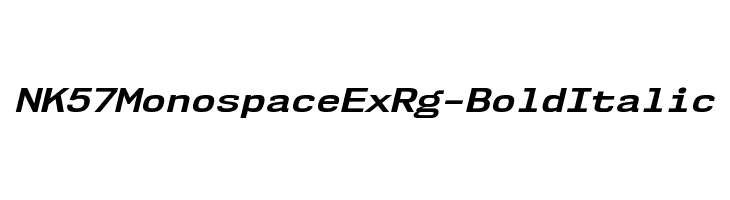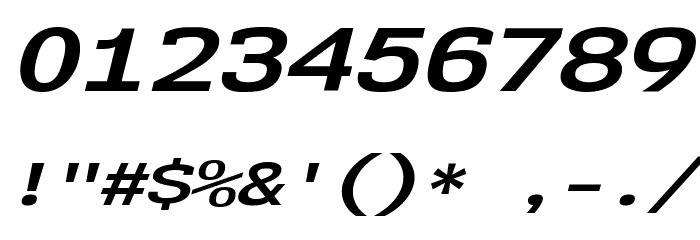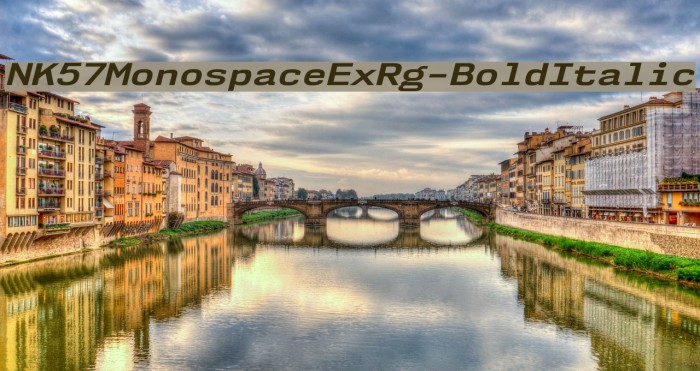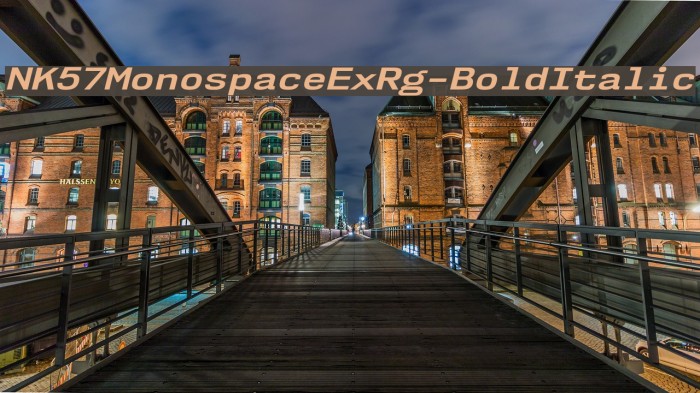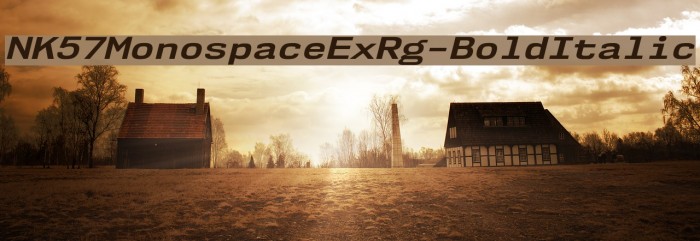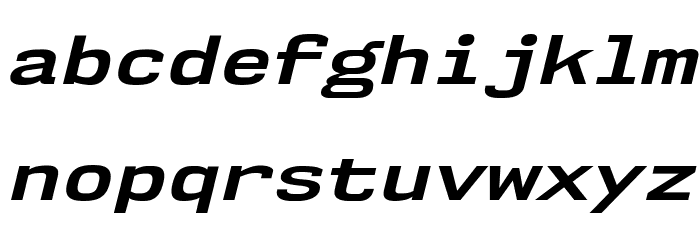
NK57MonospaceExRg-BoldItalic Font
This typeface presents a bold and italicized style, characterized by its monospaced design where each character occupies the same amount of horizontal space. The font exhibits a modern and sleek appearance, with a slight slant that adds a dynamic feel. The characters are well-defined with consistent stroke widths, providing a clean and structured look. The uppercase and lowercase letters maintain a uniform height, enhancing readability. The numerals and special characters are crafted with precision, ensuring clarity across different uses. This font is ideal for programming, technical documentation, and any project requiring a clear and organized presentation.
A bold, italicized monospaced font with a modern and structured appearance.
• Proposed Projects: Ideal for coding environments, technical documentation, and design projects requiring a clean, uniform look.